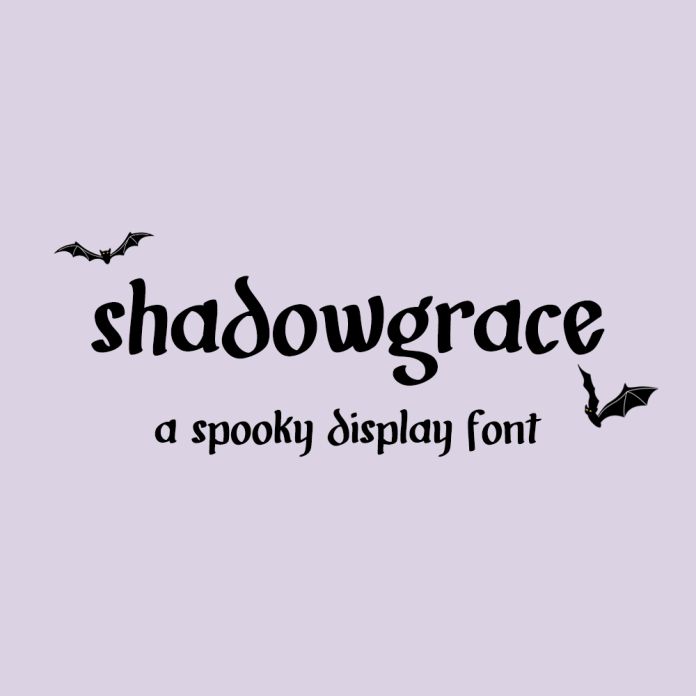
Introducing Shadowgrace, a spooky display font. Shadowgrace is a fantastic fit for your scary designs. This font is well-suited for Halloween crafting projects with your Silhouette machine, and can be used for things like shirts, signs, labels, marketing materials, social media, SVG designs, greeting cards & other print items, and even spooky logos & branding.